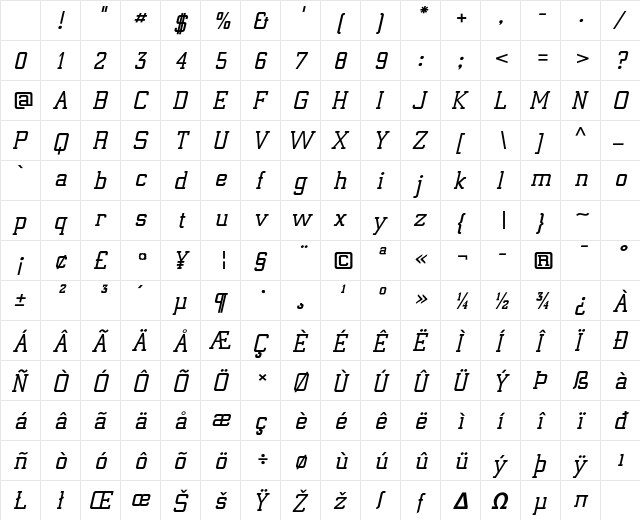
Complete Electrum ADF Exp Lt Bold Italic glyph index. Displaying only characters natively supported by Electrum ADF Exp Lt Bold Italic font.
Electrum ADF Exp Lt is a composed and adaptable typeface that performs quietly and consistently across a wide range of design contexts. The slanted form adds forward momentum and visual energy. Its bold stroke weight gives it real presence on the page.
Pro Tip: Use Electrum ADF Exp Lt for emphasis, pull quotes, and subheadings where its slanted energy can add rhythm to the layout.